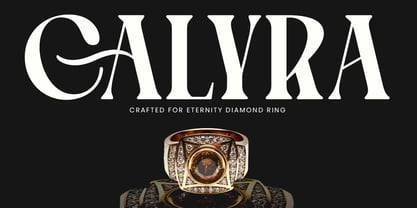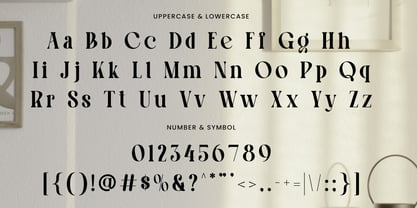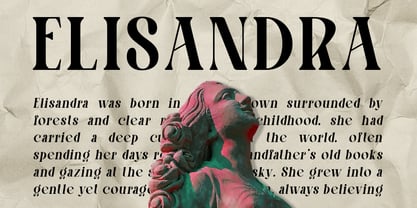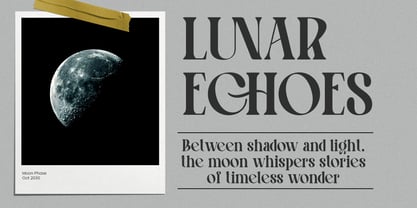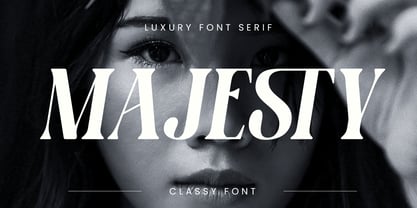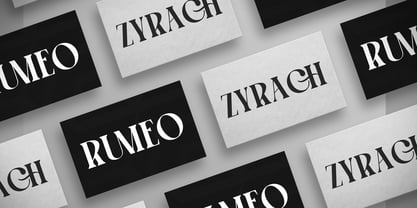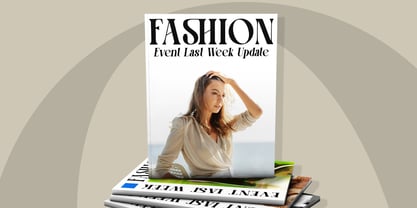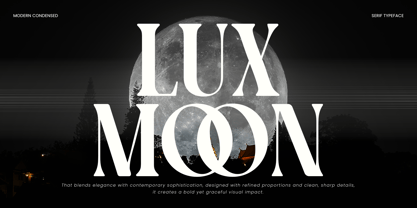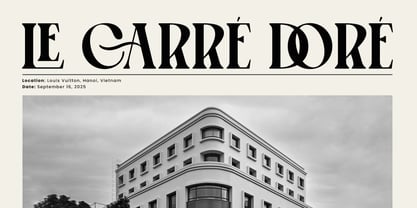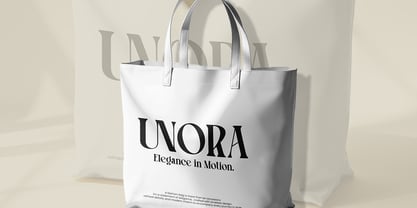
Lux Moon
by Jafar07
The Lux Moon Font Family was designed by Bakhrudin Ja'far and published by Jafar07. Lux Moon contains 2 styles and family package options.
Luxmoon is a modern condensed serif font that blends timeless elegance with bold contemporary edge. Designed with refined proportions, balanced kerning, smooth curves, and sharp details, it creates a powerful yet graceful visual impression perfect for branding, editorial design, logos, social media, packaging, posters, invitations, and wedding projects. Versatile in both digital and print, Luxmoon delivers sophistication, impact, and a touch of luxury to every design.